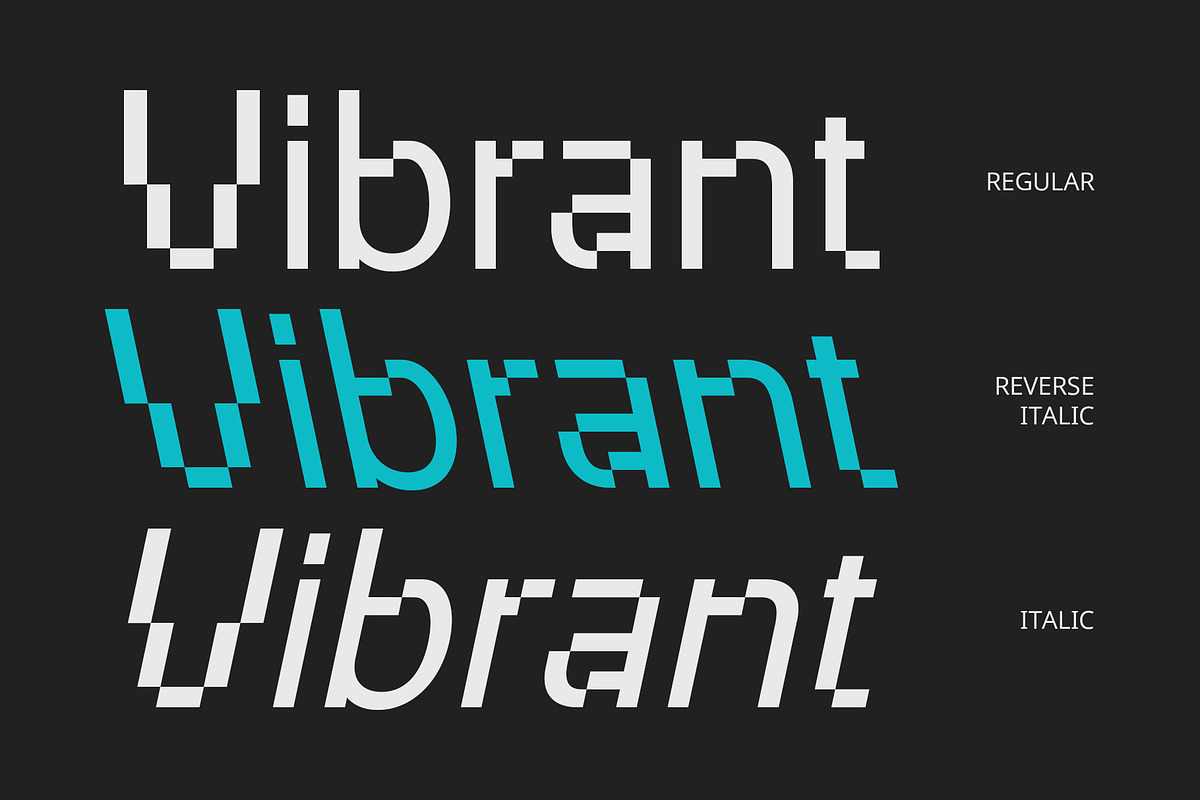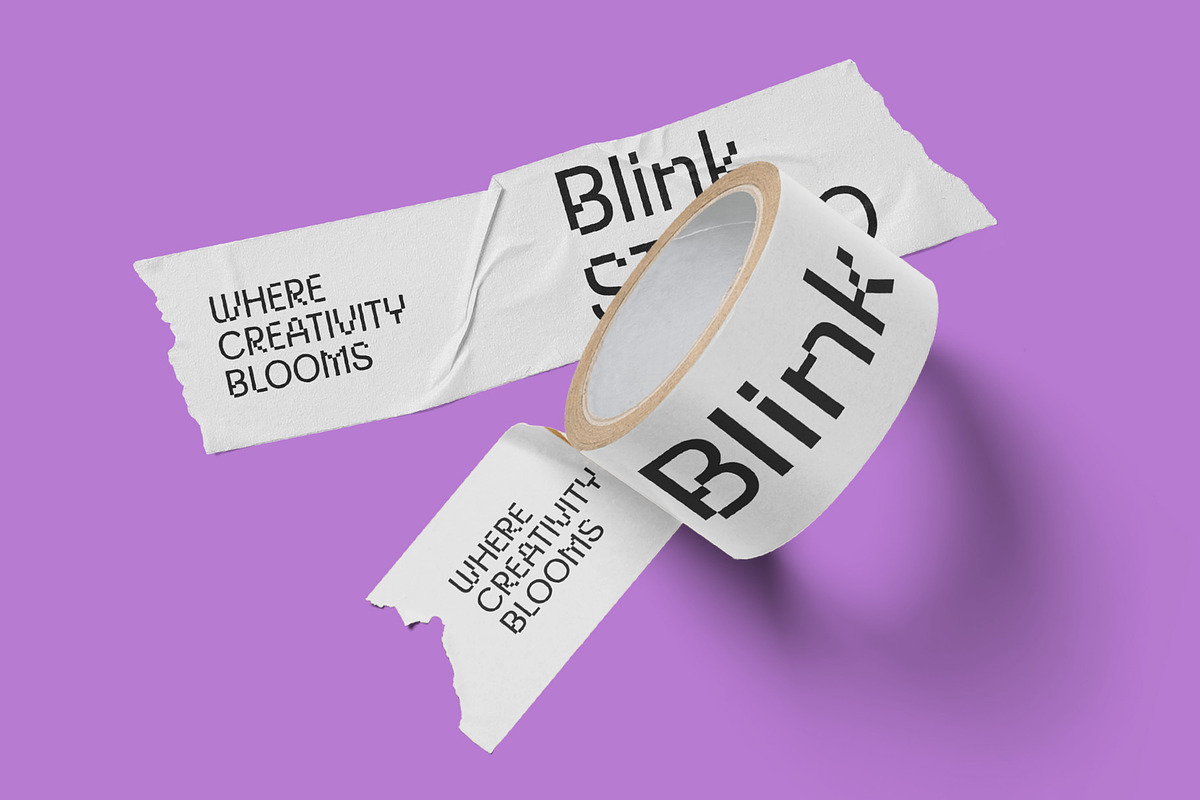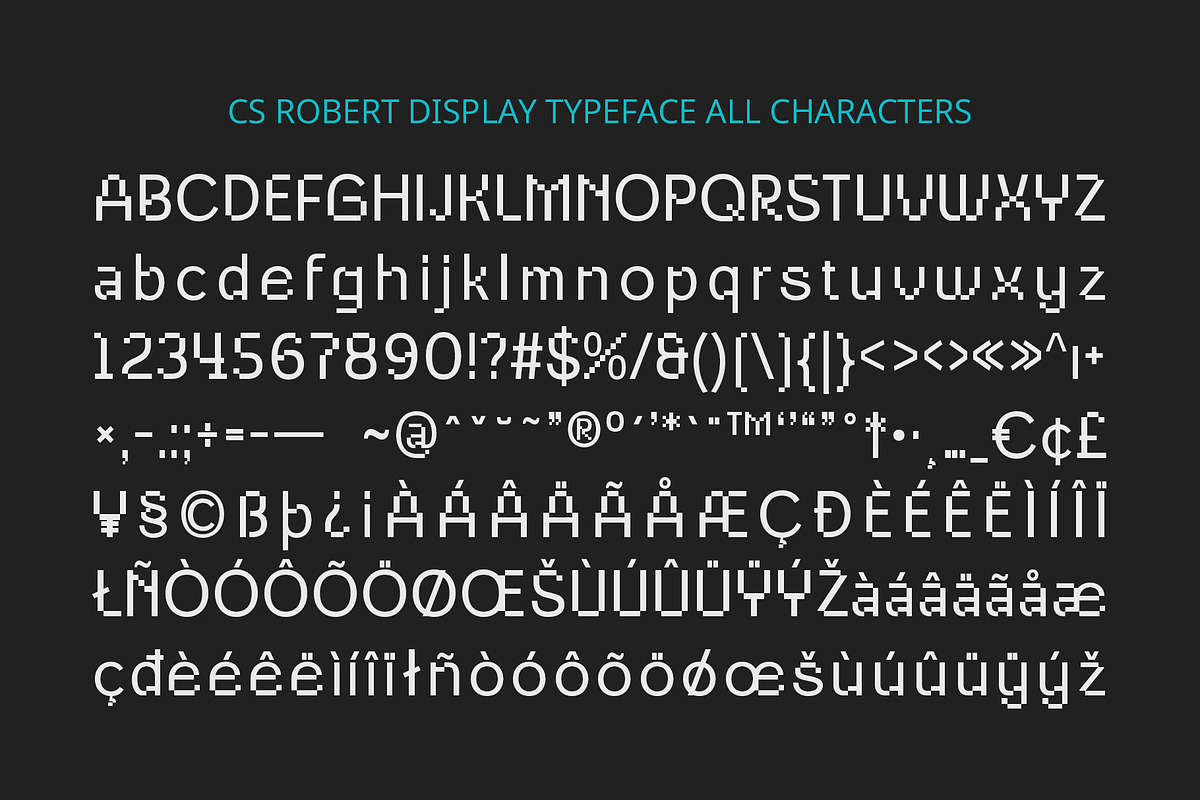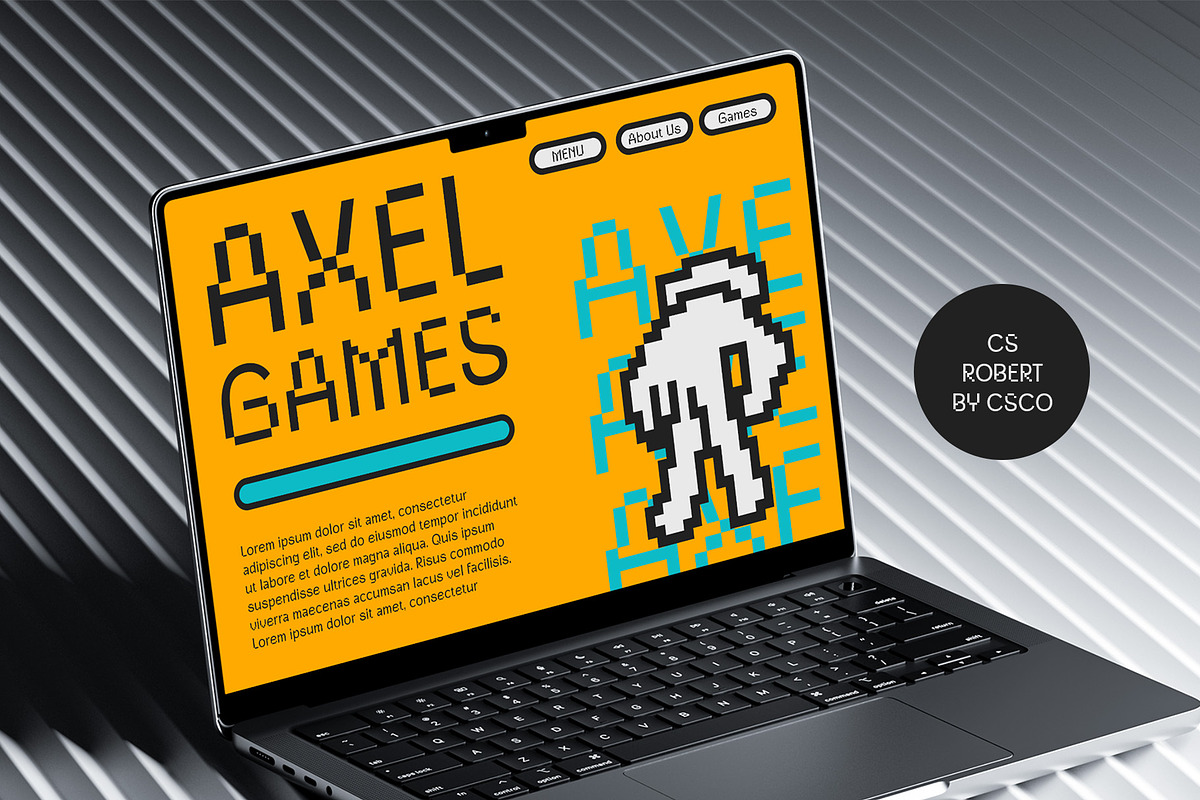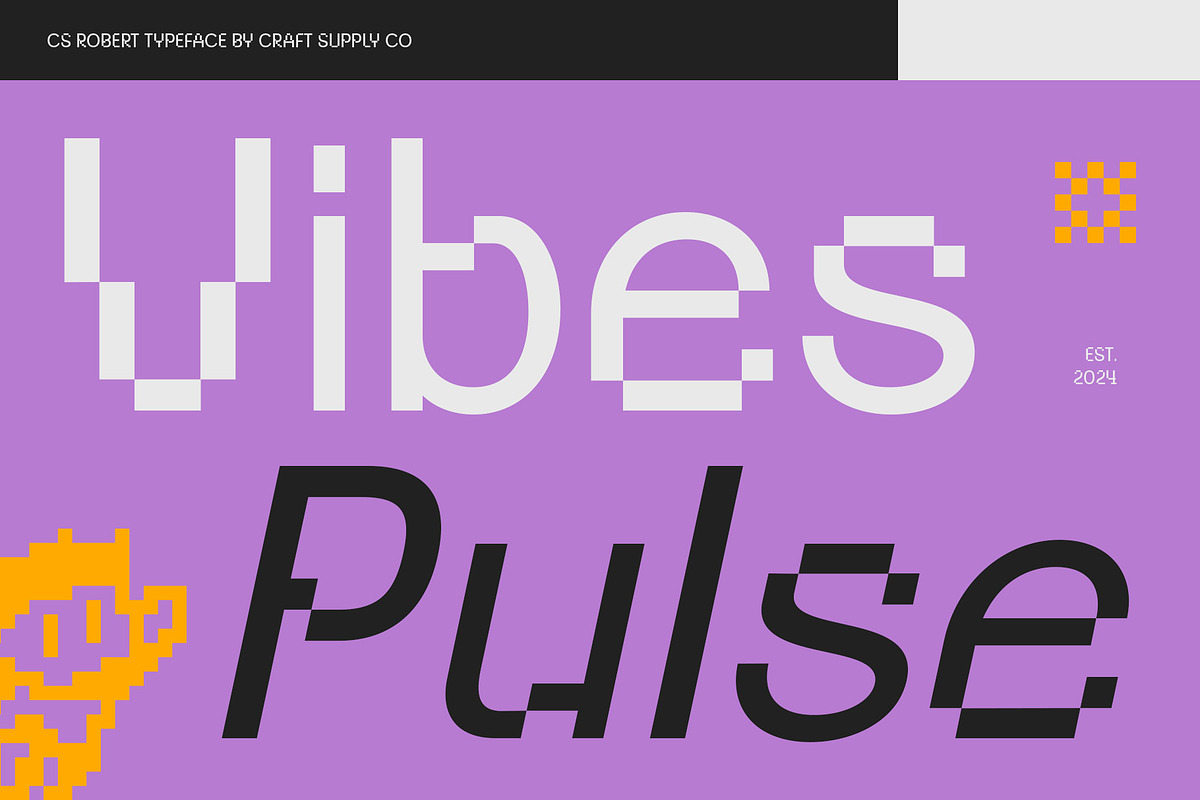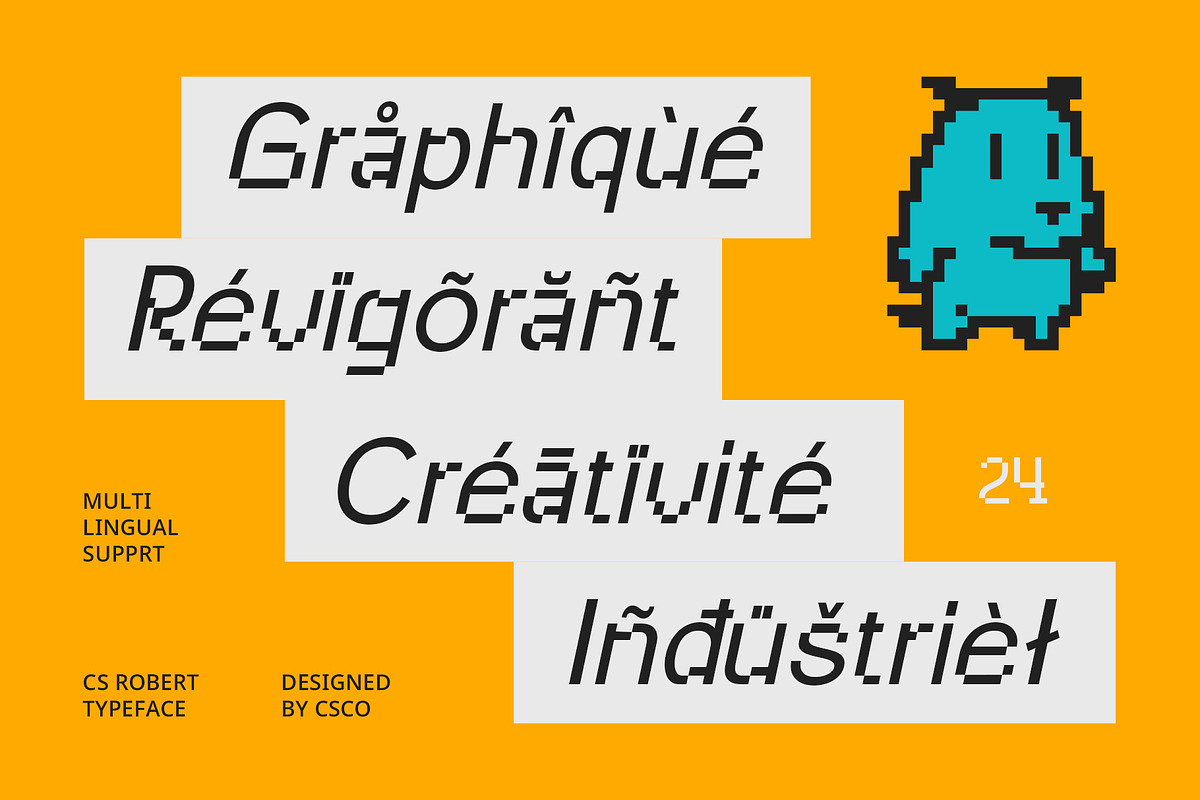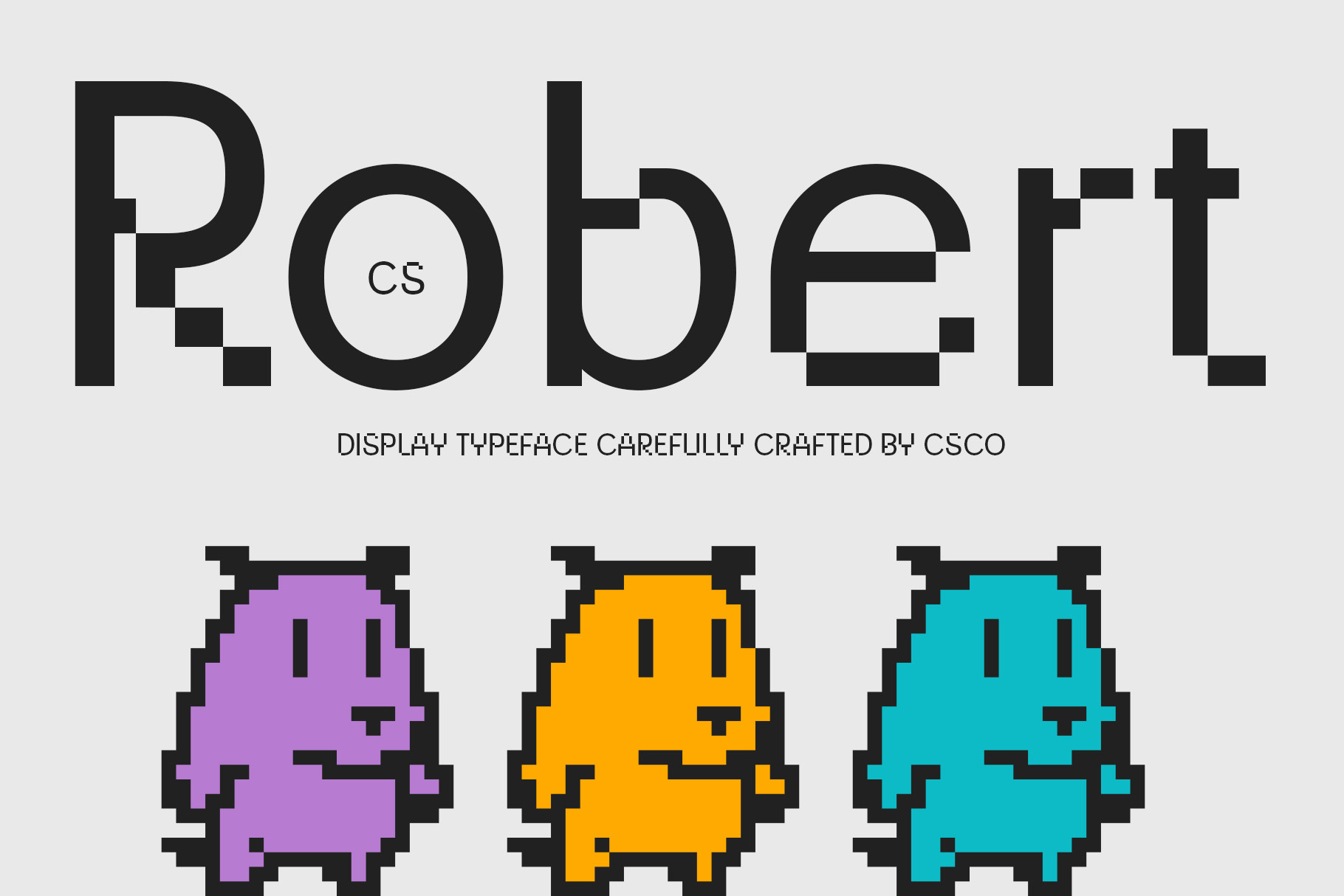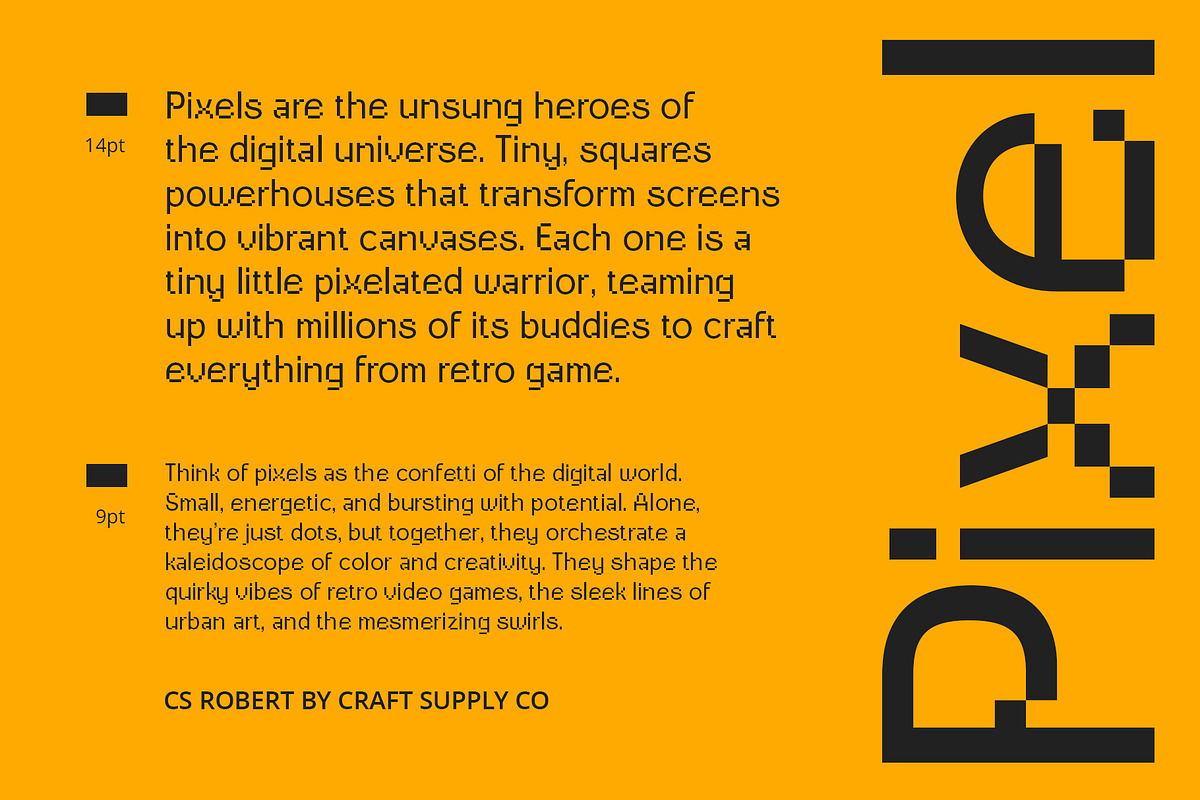
CS Robert – Pixel Font
CS Robert – Pixel Font: A Retro Pixelated Journey Back to the 90s
Pixelated Nostalgia CS Robert is a display font that channels the distinctive aesthetic of early computer displays and video games, bringing the pixelated charm of the 90s into modern design. The font’s letterforms are constructed using small, square blocks, mimicking the low-resolution screens of retro tech, creating a nostalgic, digital look that evokes memories of a simpler, early digital era.
A Nod to Classic Gaming and Tech Inspired by the pixel-based graphics that defined 90s video games and computer displays, CS Robert is perfect for designs that celebrate retro gaming, technology, or 90s pop culture. The font’s pixelated appearance is a playful and energetic homage to the golden age of gaming and digital innovation, offering a unique way to evoke the feeling of old-school digital charm.
Energetic, Vintage Appeal The font’s blocky, structured design gives it a distinct vintage vibe while maintaining a sense of fun and liveliness. CS Robert conveys a playful, energetic atmosphere that captures the essence of early computer graphics and pixel art, making it ideal for designs that want to tap into the energy and creativity of the 90s.